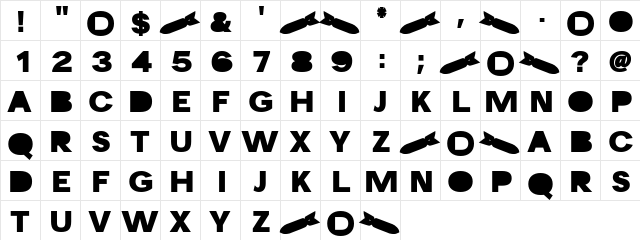
Missile Regular
Design Context for Missile Typeface
Missile offers clean, dependable letterforms without strong stylistic allegiance, making it a practical choice for designers who need flexibility.